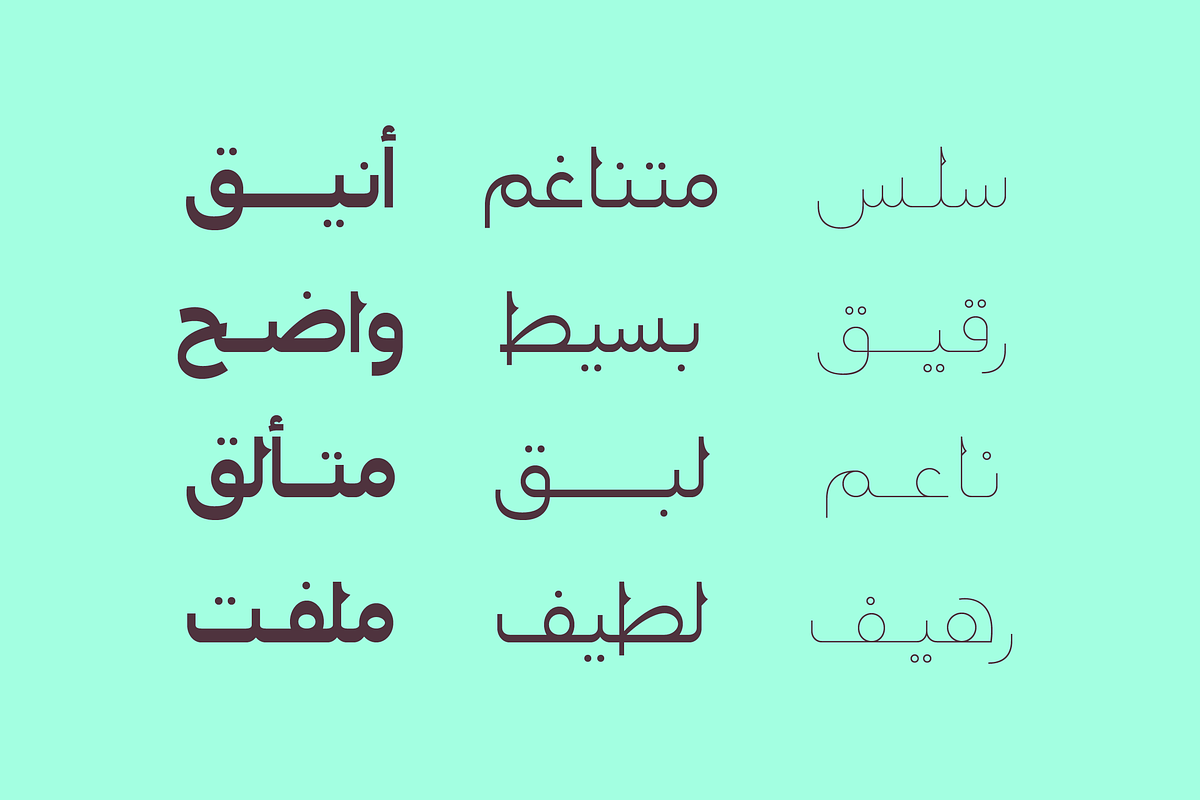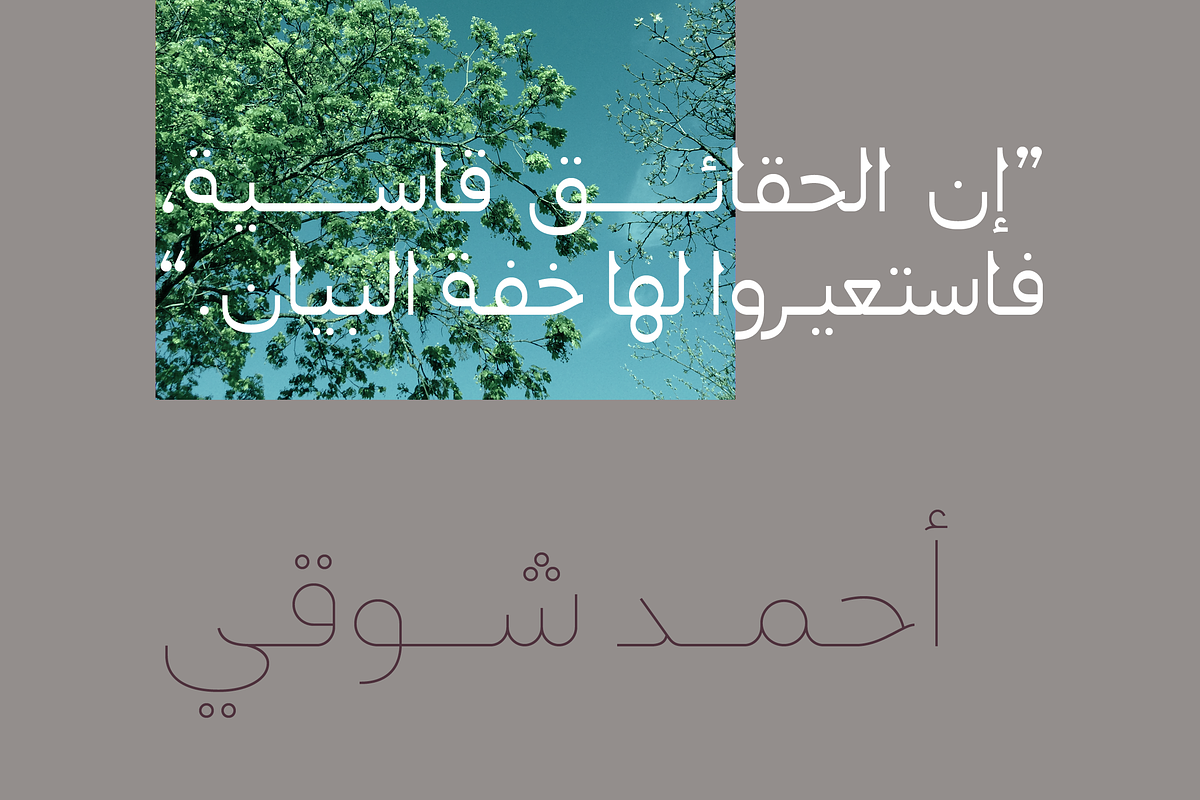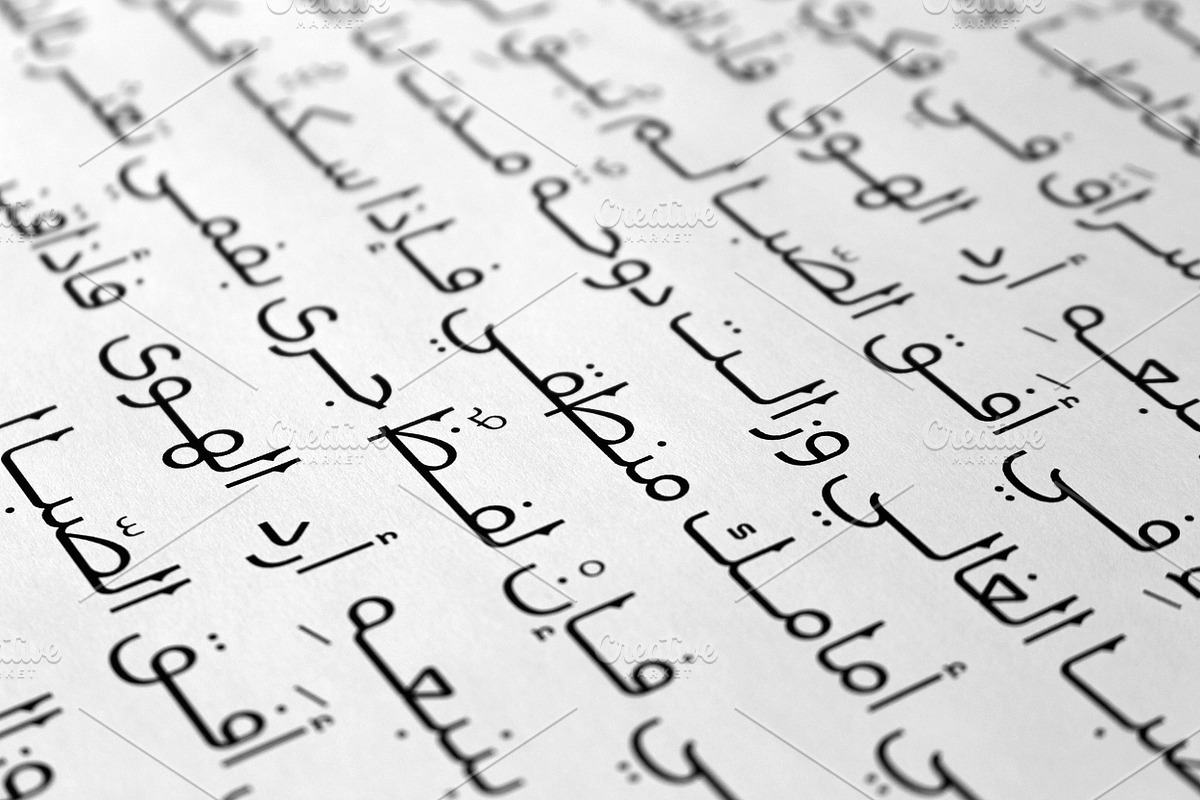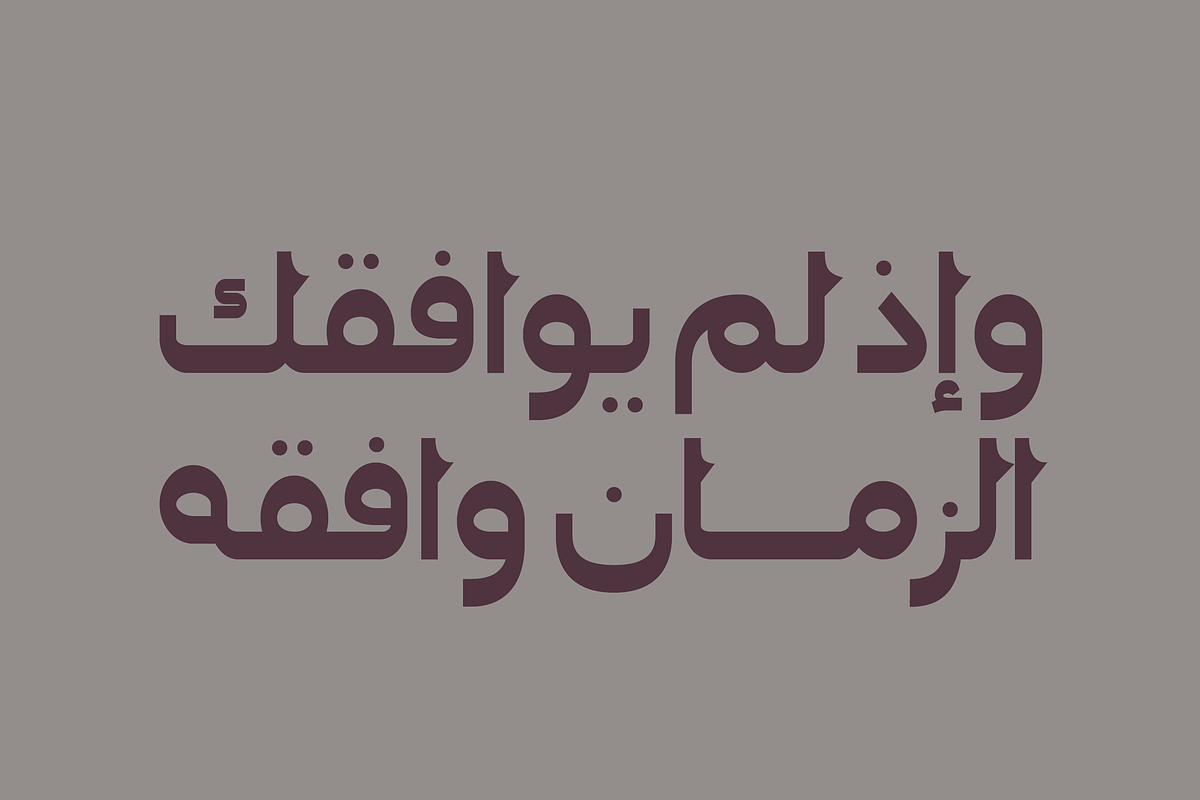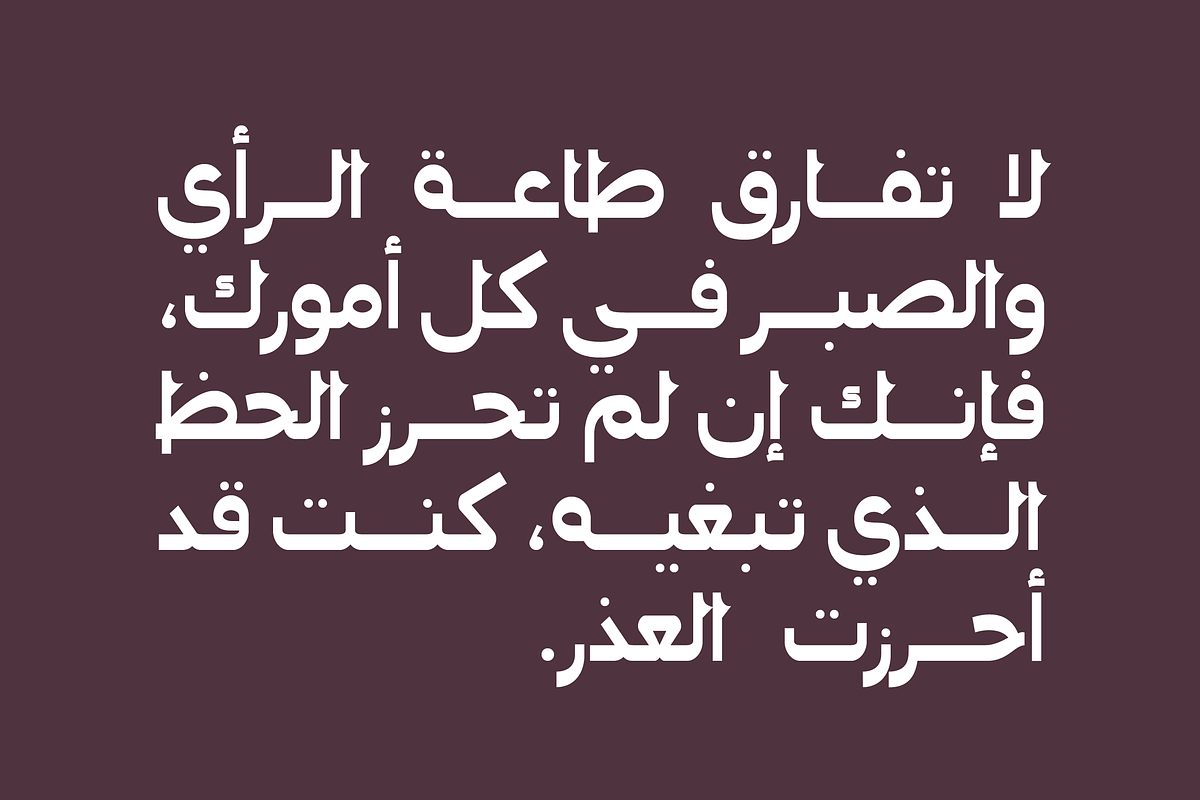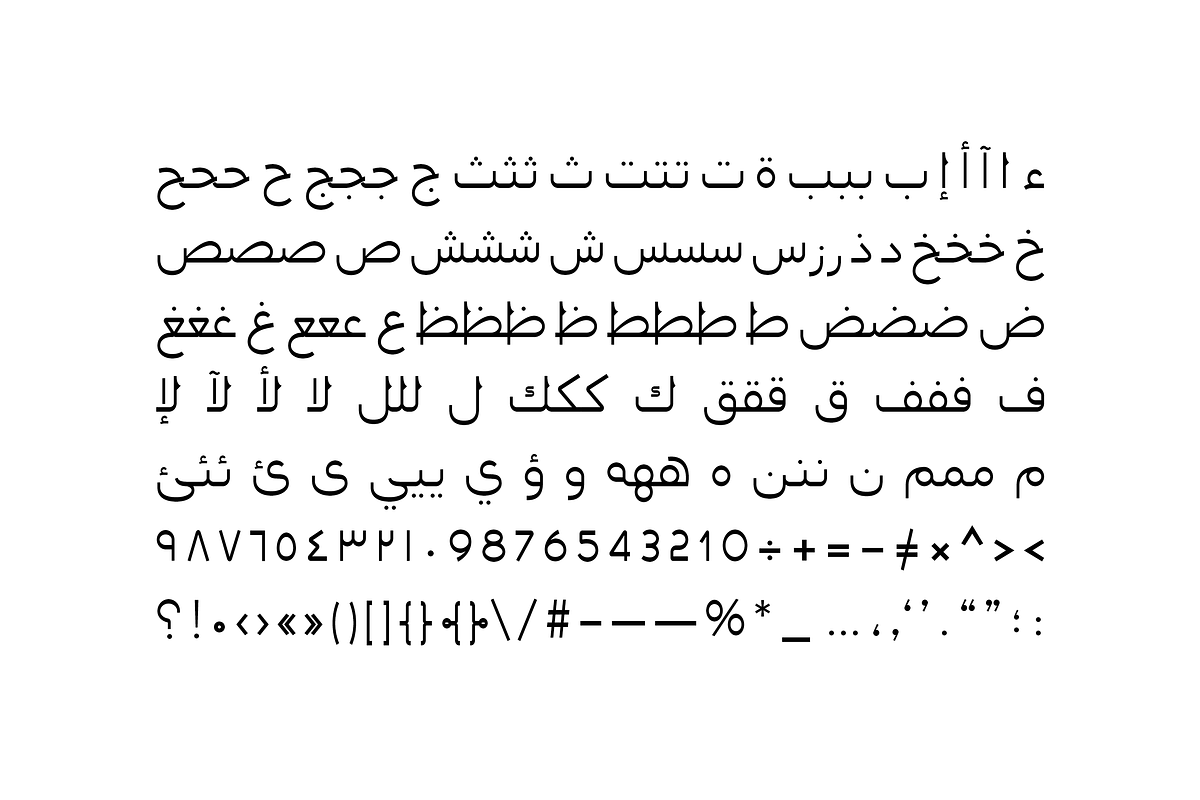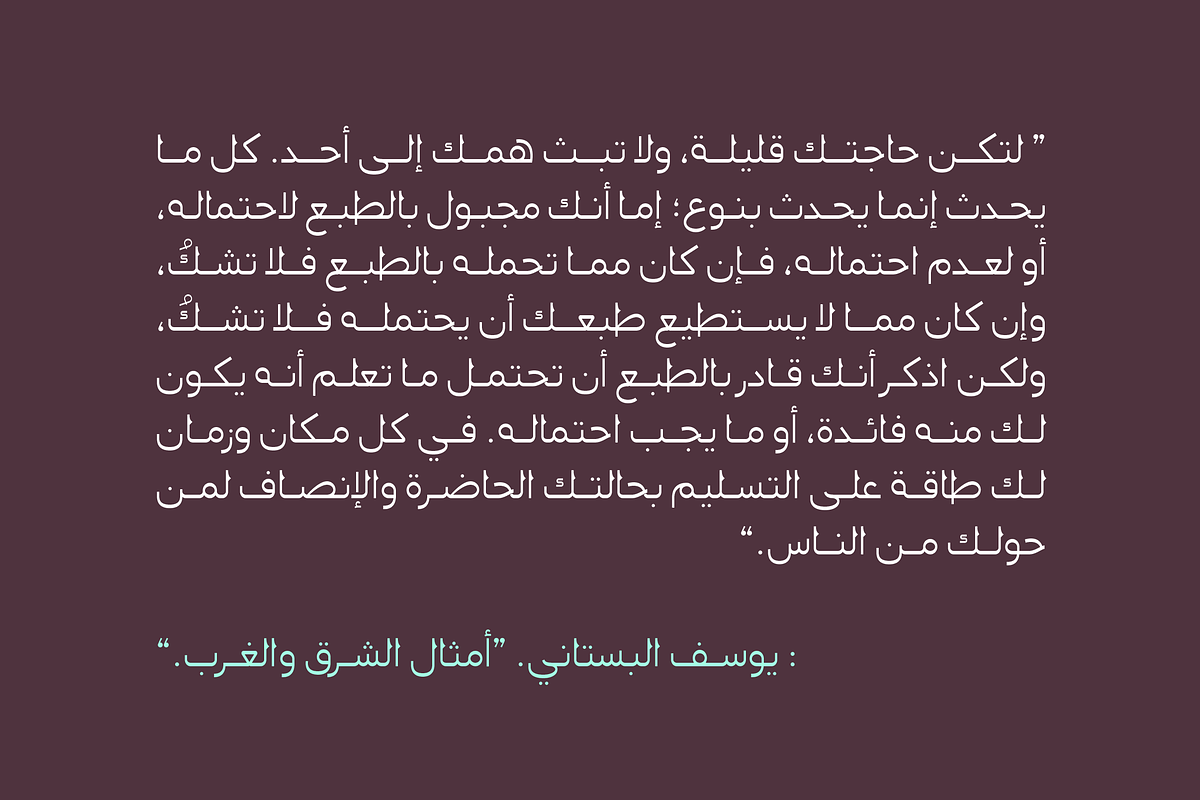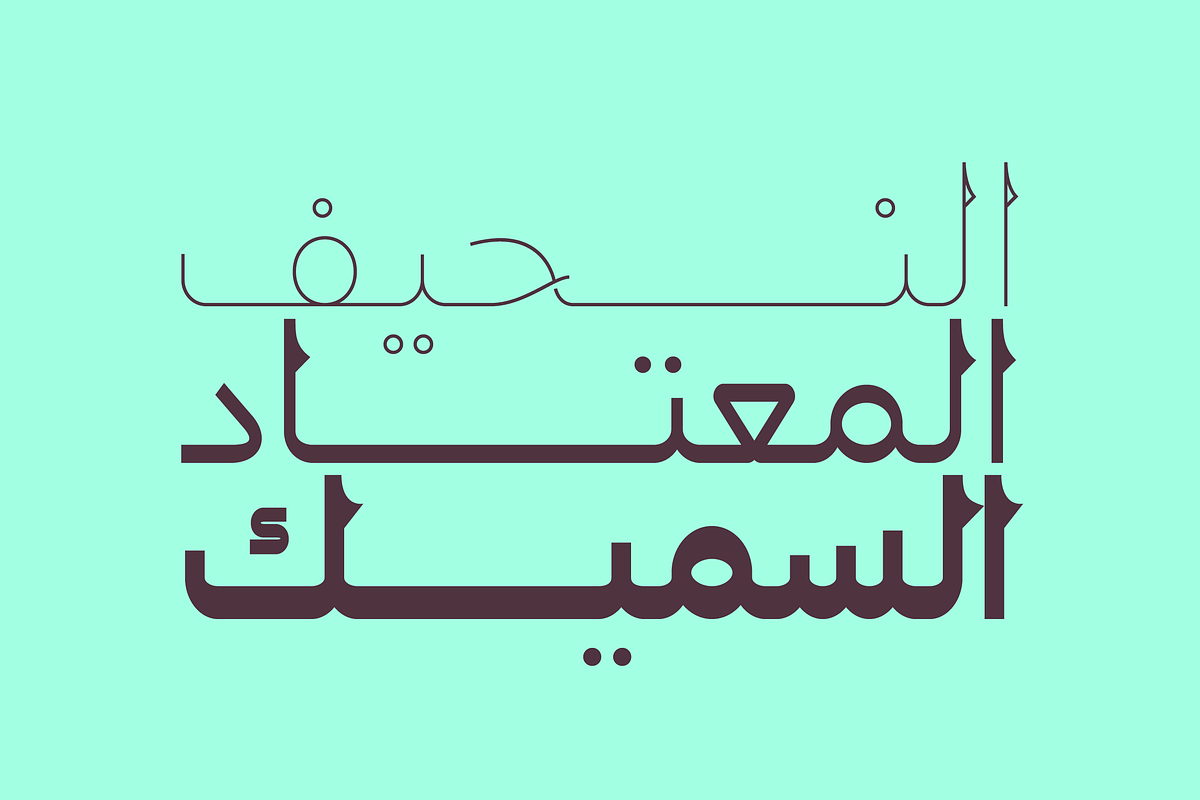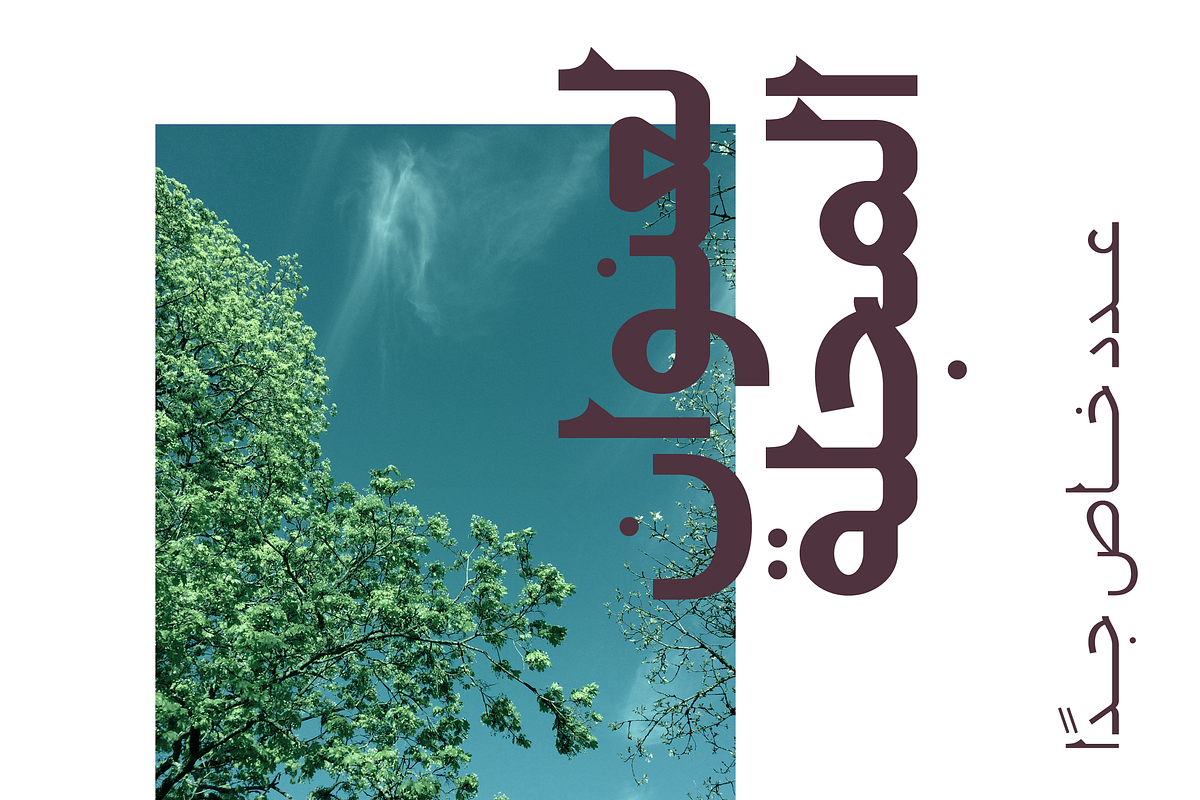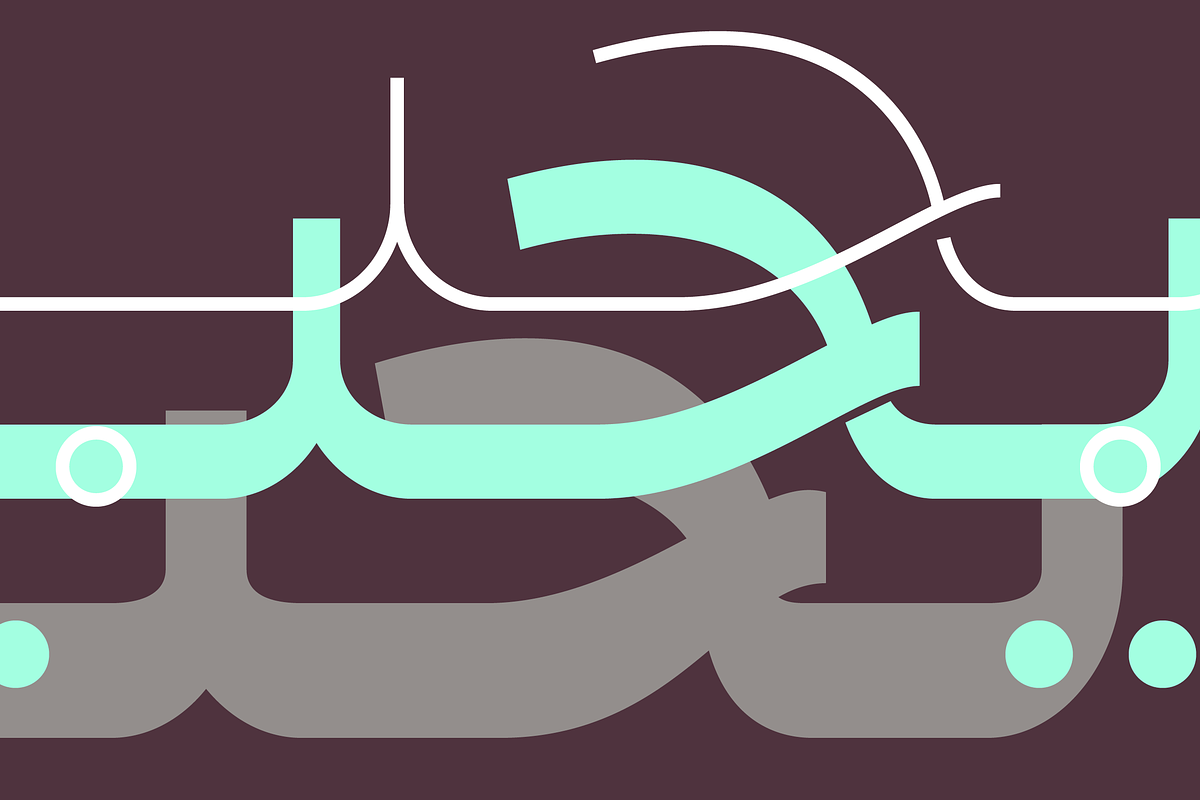
Montalaq - Arabic Typeface
Montalaq (which is the Arabic word for takeoff base) is an Arabic font that is based on Arabic handwriting style redesigned into a geometric structure. The typeface consists of three weights (Air, Regular and Bold) and it suits print, web and mobile applications.